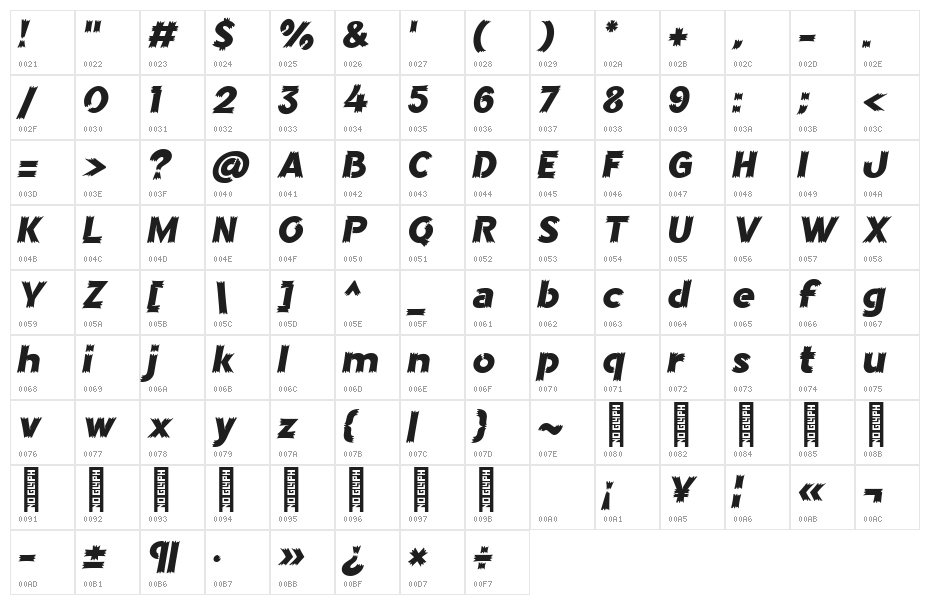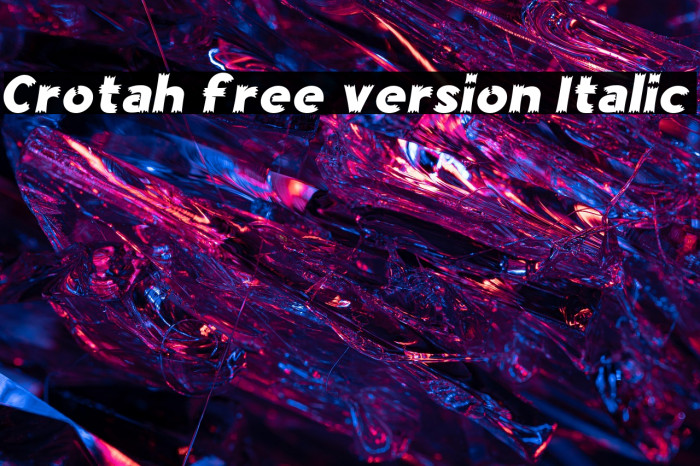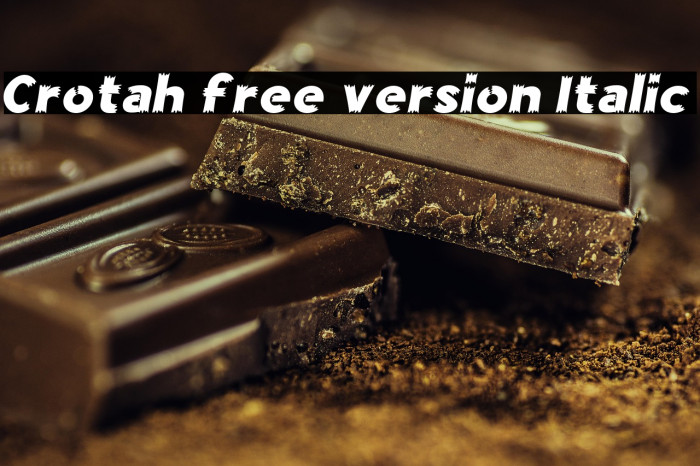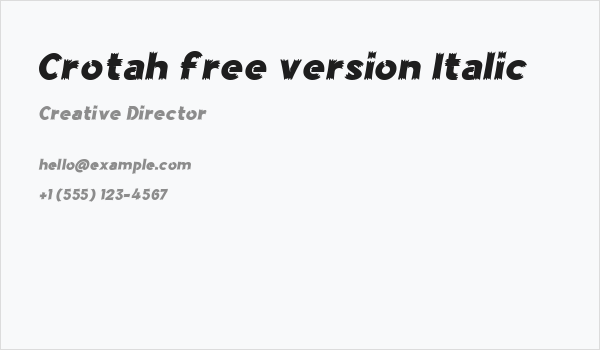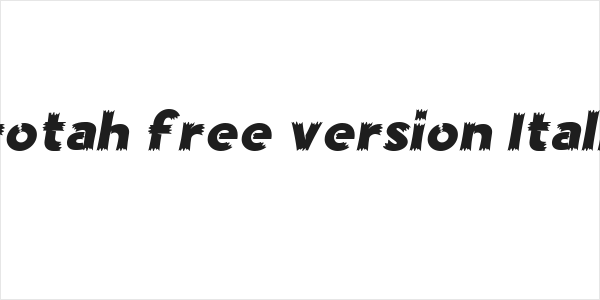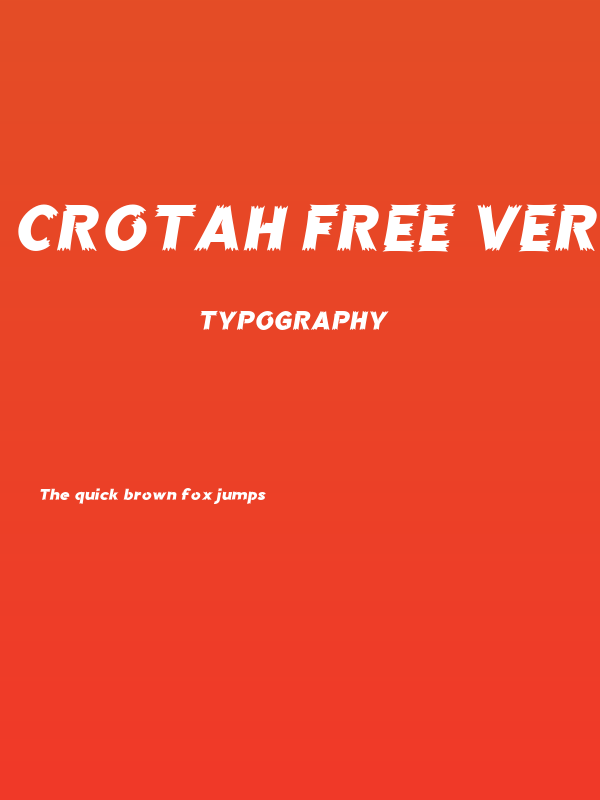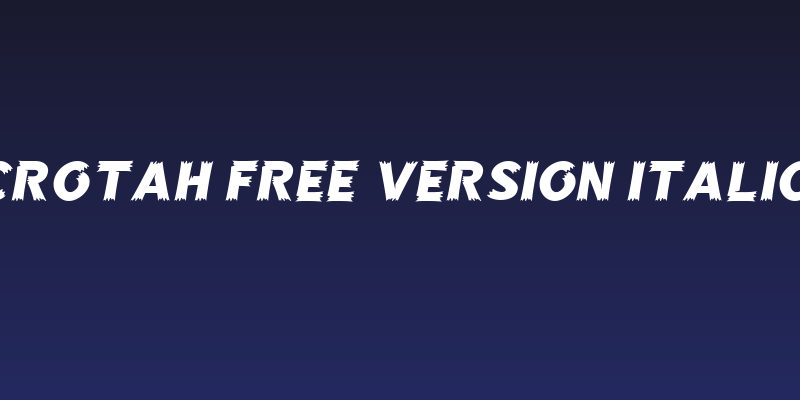
Crotah free version Italic Font
Crotah free version Italic Description
This font features a bold and dynamic style with jagged, brush-like strokes that give it a sense of movement and energy. The characters are italicized, adding to the sense of speed and urgency. The uppercase and lowercase letters maintain a consistent design, with sharp edges and a slightly aggressive appearance. Numbers and special characters follow the same aesthetic, ensuring uniformity across all glyphs. The font's unique style makes it stand out, ideal for projects that require a strong visual impact.
| Overall Style | Modern, Dynamic |
| Proposed Projects | Ideal for sports branding, action movie posters, dynamic event flyers, and edgy graphic design projects. |